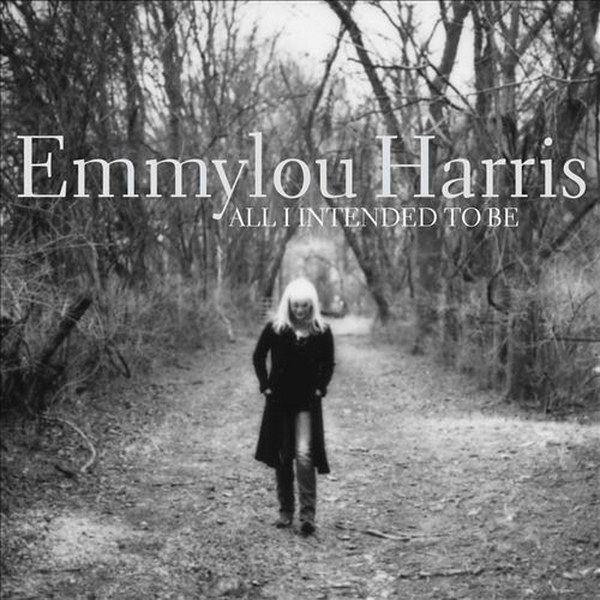
All I Intended To Be Font
CountryAll I Intended To Be is an album by Emmylou Harris, released in 2008.
The cover of the album features Electra Regular as its font. Designed by William Addison Dwiggins in 1935, the typeface is known for its legibility and balanced design making it a popular choice for book printing.